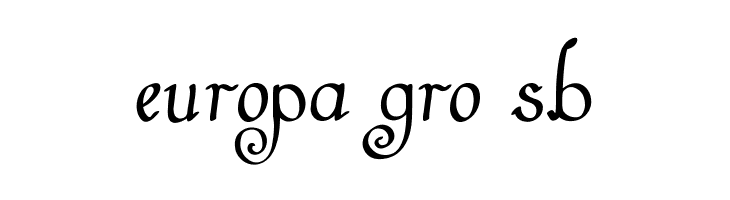
A whimsical script font with decorative flourishes and playful embellishments.
An ornate, vintage script font with elegant flourishes and a handwritten feel.
An ornate and decorative font with intricate flourishes, perfect for artistic projects.
An elegant, decorative font with intricate swirls and flourishes.
An artistic script font with flowing, interconnected letters and decorative flourishes.
A playful, artistic handwritten font with dynamic strokes and whimsical flourishes.
Ornamental frame-based decorative font with intricate flourishes.